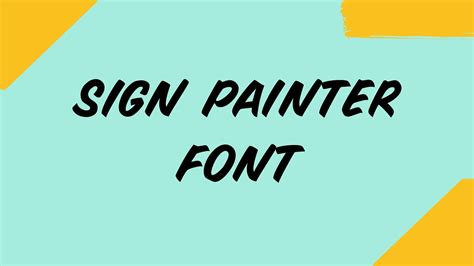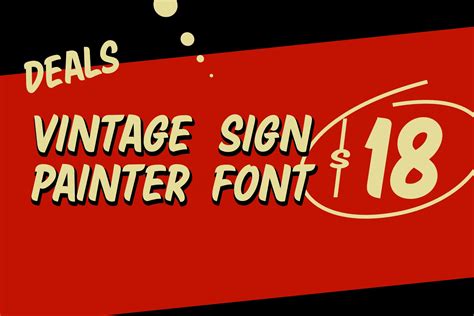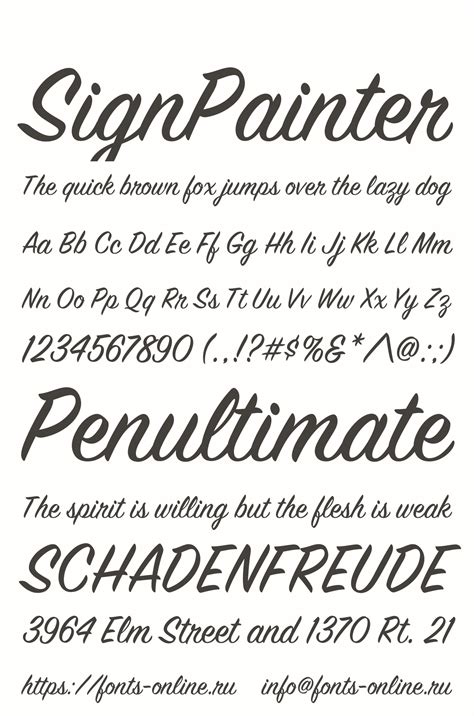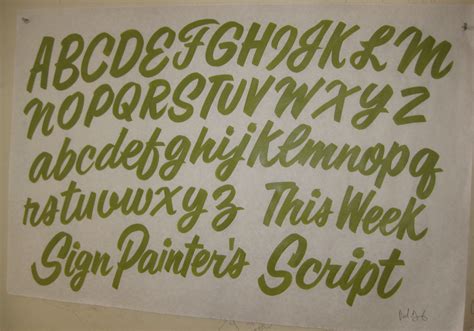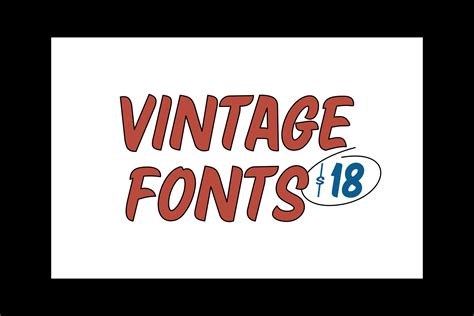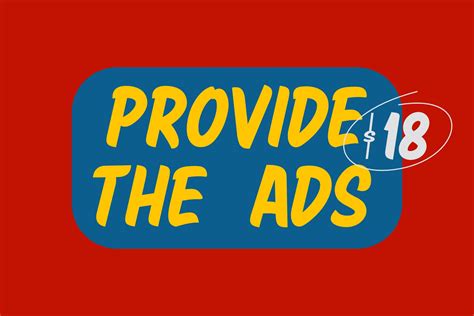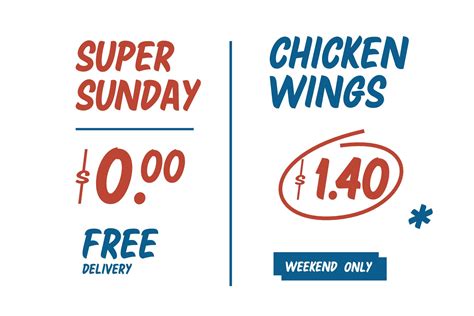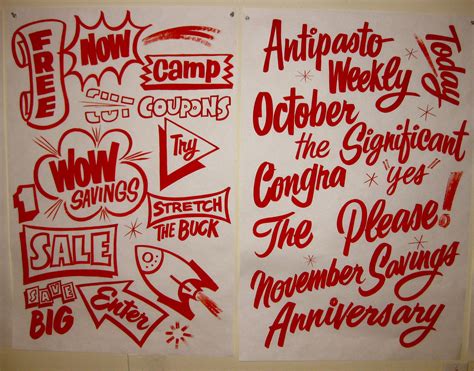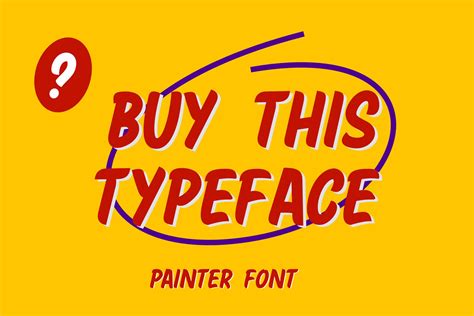
In the world of graphic design and typography, the Sign Painter Font holds a special place. These fonts are inspired by the classic lettering styles used by sign painters, who hand-painted signs for businesses, events, and advertisements. The Sign Painter Font captures the essence of vintage aesthetics, evoking a sense of nostalgia and authenticity. This blog post delves into the history, characteristics, and applications of Sign Painter Fonts, providing a comprehensive guide for designers and enthusiasts alike.
History of Sign Painter Fonts
The art of sign painting dates back centuries, with roots in traditional calligraphy and hand-lettering techniques. Sign painters were skilled artisans who created eye-catching signs using brushes, paints, and stencils. Their work was not only functional but also an art form, often featuring intricate designs and bold lettering. The Sign Painter Font emerged as a digital representation of this craft, allowing designers to replicate the vintage charm of hand-painted signs in their digital projects.
Characteristics of Sign Painter Fonts
Sign Painter Fonts are known for their distinctive features, which set them apart from modern digital fonts. Some of the key characteristics include:
- Hand-Drawn Aesthetic: These fonts mimic the imperfections and variations of hand-drawn letters, giving them a unique and authentic feel.
- Bold and Vibrant: Sign Painter Fonts often feature thick strokes and vibrant colors, making them highly visible and impactful.
- Retro and Vintage: Inspired by the lettering styles of the past, these fonts evoke a sense of nostalgia and retro charm.
- Versatility: Despite their vintage appeal, Sign Painter Fonts can be used in a variety of modern design projects, from branding and packaging to digital media and advertising.
Popular Sign Painter Fonts
There are numerous Sign Painter Fonts available, each with its unique style and characteristics. Here are some popular options:
| Font Name | Description |
|---|---|
| Chalkduster | A classic Sign Painter Font with a chalkboard-like appearance, perfect for menus, invitations, and educational materials. |
| Lobster | A bold and playful font with a retro feel, ideal for headlines, logos, and branding. |
| Pacifico | A script font with a hand-drawn, casual style, suitable for invitations, greeting cards, and social media posts. |
| Bebas Neue | A modern, bold font with a clean and minimalist design, often used in posters, banners, and digital displays. |
| Creepster | A spooky and playful font with a hand-drawn, graffiti-like style, perfect for Halloween-themed designs and horror-related projects. |
These fonts are just a few examples of the wide range of Sign Painter Fonts available. Each font has its unique charm and can be used to create distinctive and memorable designs.
Applications of Sign Painter Fonts
Sign Painter Fonts are incredibly versatile and can be used in a variety of design projects. Here are some popular applications:
- Branding and Logos: The vintage and retro appeal of Sign Painter Fonts makes them ideal for creating unique and memorable logos and branding materials.
- Packaging Design: These fonts can add a touch of nostalgia and authenticity to packaging designs, making products stand out on the shelves.
- Advertising and Marketing: Sign Painter Fonts are highly visible and impactful, making them perfect for headlines, posters, and digital advertisements.
- Invitations and Greeting Cards: The hand-drawn aesthetic of these fonts adds a personal and heartfelt touch to invitations, greeting cards, and other stationery items.
- Digital Media: Despite their vintage appeal, Sign Painter Fonts can be used effectively in digital media, including websites, social media posts, and online advertisements.
How to Use Sign Painter Fonts in Your Designs
Incorporating Sign Painter Fonts into your designs can add a unique and authentic touch. Here are some steps to help you get started:
- Choose the Right Font: Select a Sign Painter Font that matches the style and tone of your project. Consider the overall aesthetic and the message you want to convey.
- Pair with Complementary Fonts: Sign Painter Fonts often work best when paired with complementary fonts. Choose a secondary font that complements the style and enhances readability.
- Use Appropriate Sizing: Ensure that the font size is appropriate for the medium and purpose. Sign Painter Fonts are often bold and vibrant, so use them in sizes that are easily readable.
- Experiment with Colors: Sign Painter Fonts can be used with a variety of colors. Experiment with different color schemes to find the perfect match for your design.
- Add Textures and Effects: To enhance the vintage appeal, consider adding textures and effects such as grunge, distressed, or chalkboard backgrounds.
💡 Note: When using Sign Painter Fonts, it's important to ensure that the font is legible and easy to read. Avoid using overly complex or decorative fonts for body text, as they can be difficult to read.